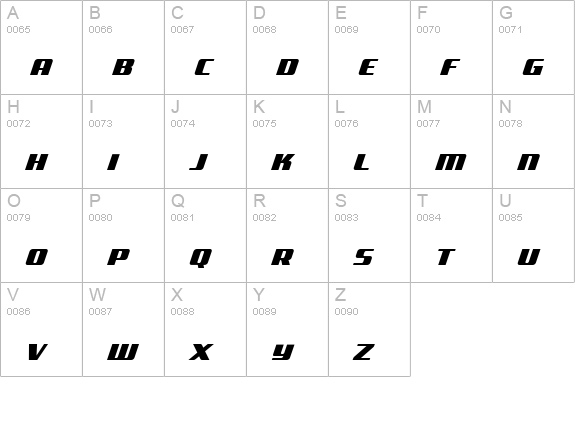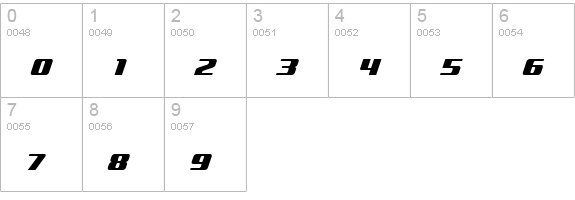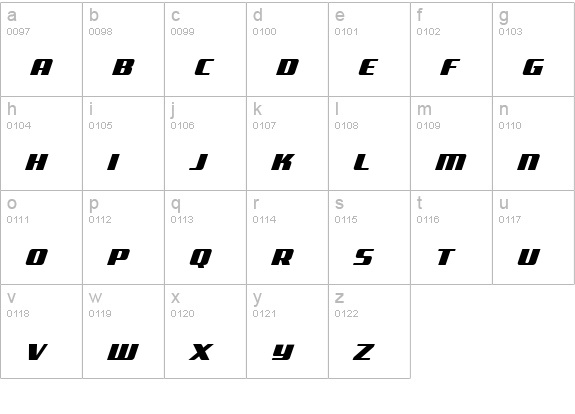
Global-SmallCapsAlt Font Details
Global-SmallCapsAlt font is a versatile and elegant typeface designed to bring a touch of sophistication to your designs. With its refined small caps and clean lines, this font is perfect for adding a modern and professional look to any project. The subtle variations in stroke width create a harmonious balance that is both eye-catching and easy to read. What sets Global-SmallCapsAlt font apart is that it is completely free to download at FontsMarket.com. This means you can access this high-quality font without any cost, making it a valuable addition to your font collection. Whether you're working on a branding project, editorial design, or any other creative endeavor, Global-SmallCapsAlt font is sure to elevate your work with its timeless appeal.